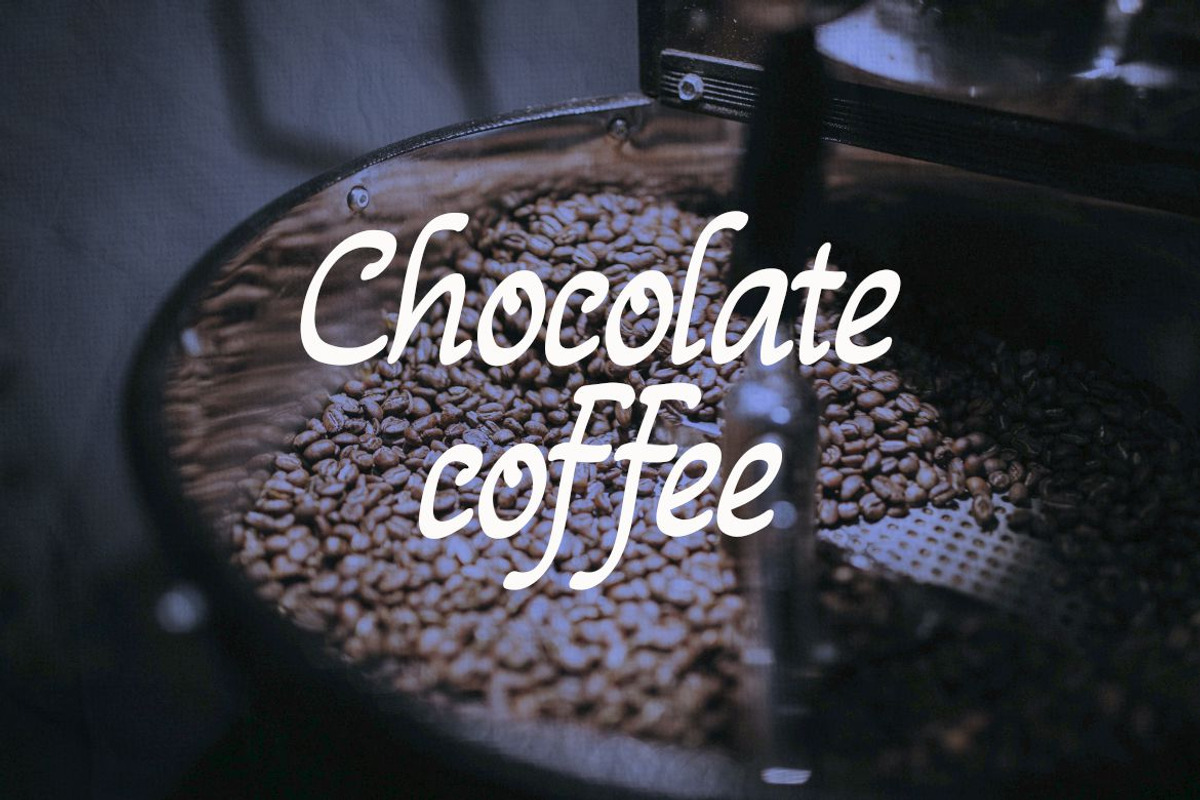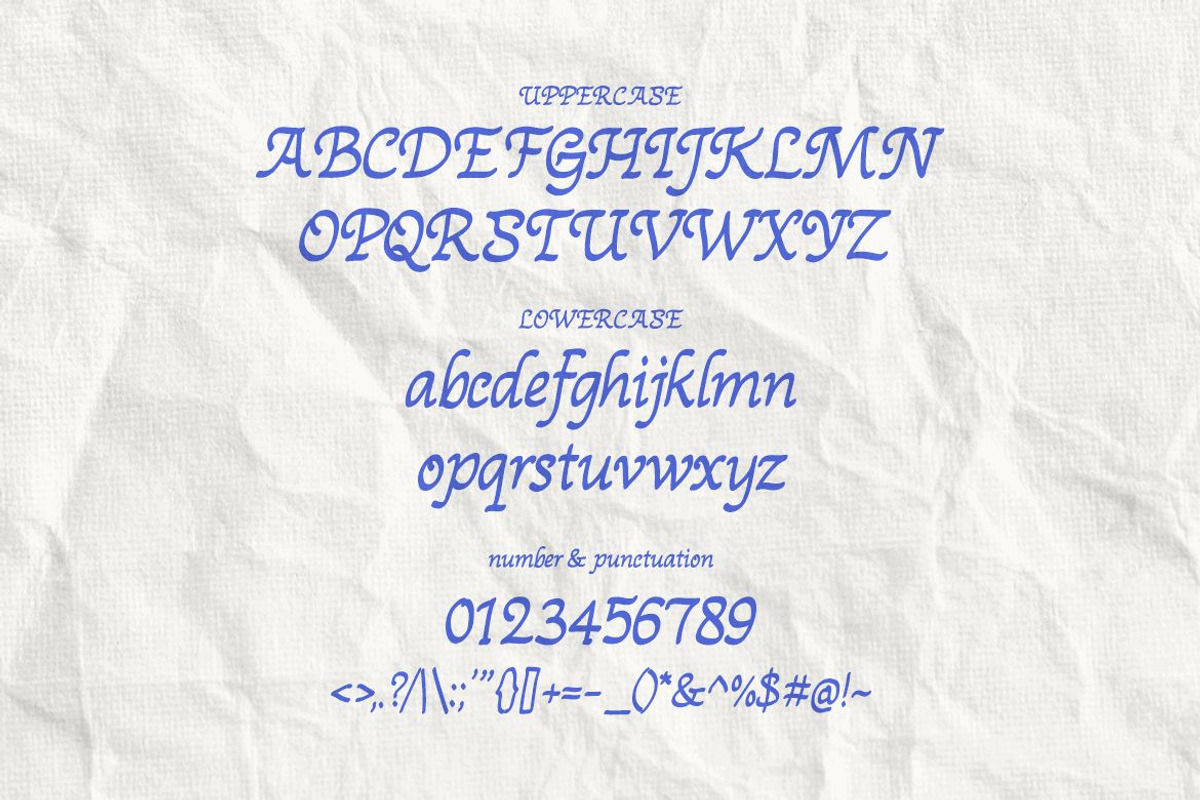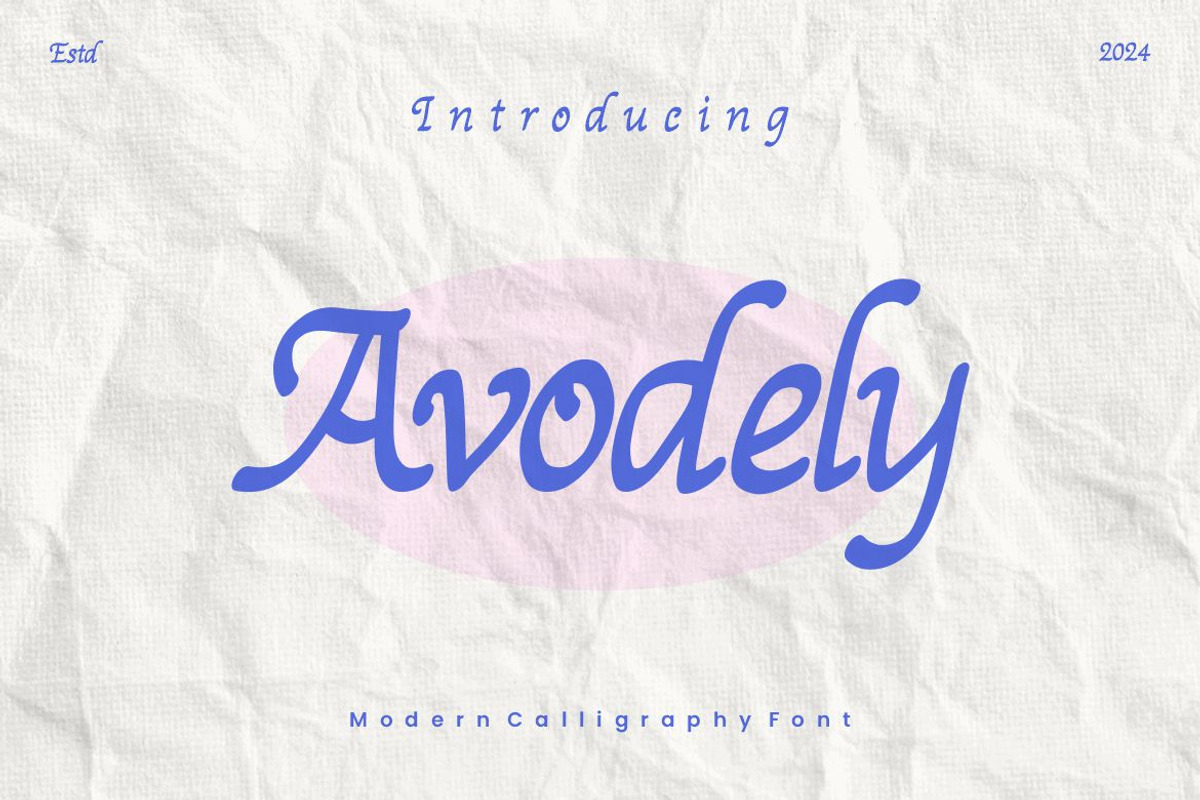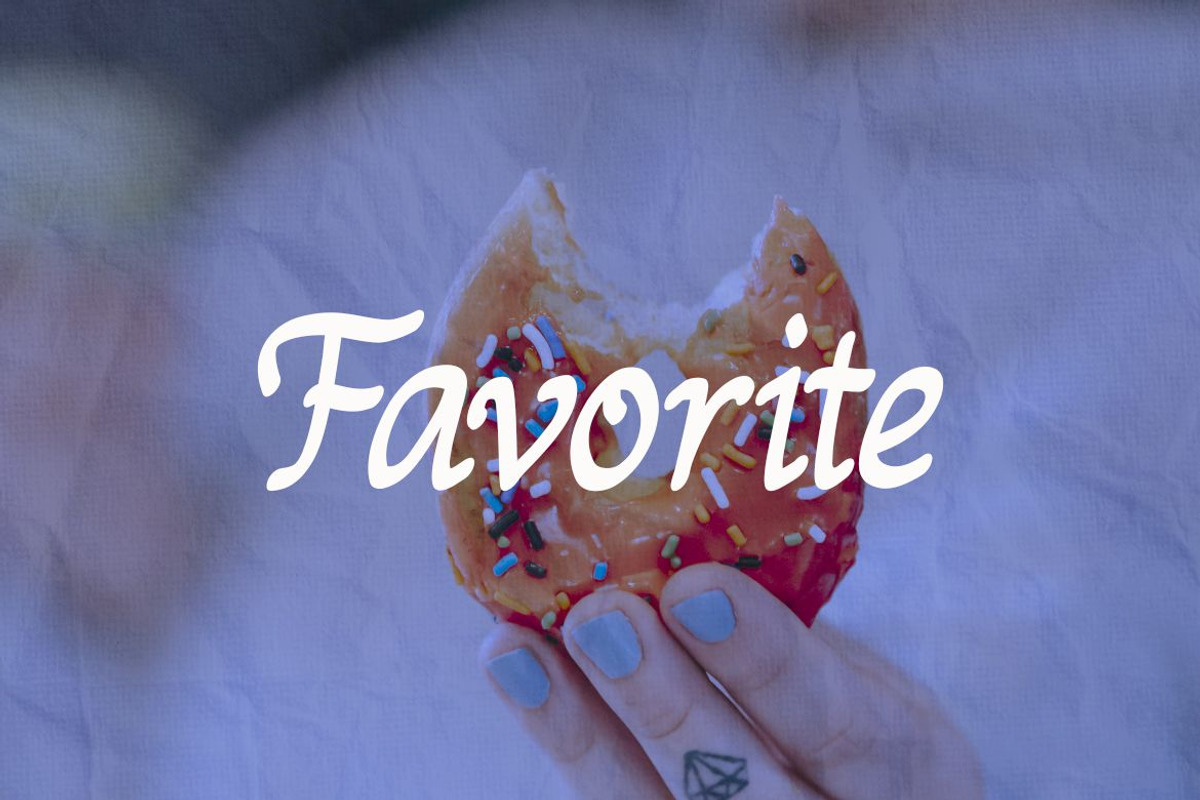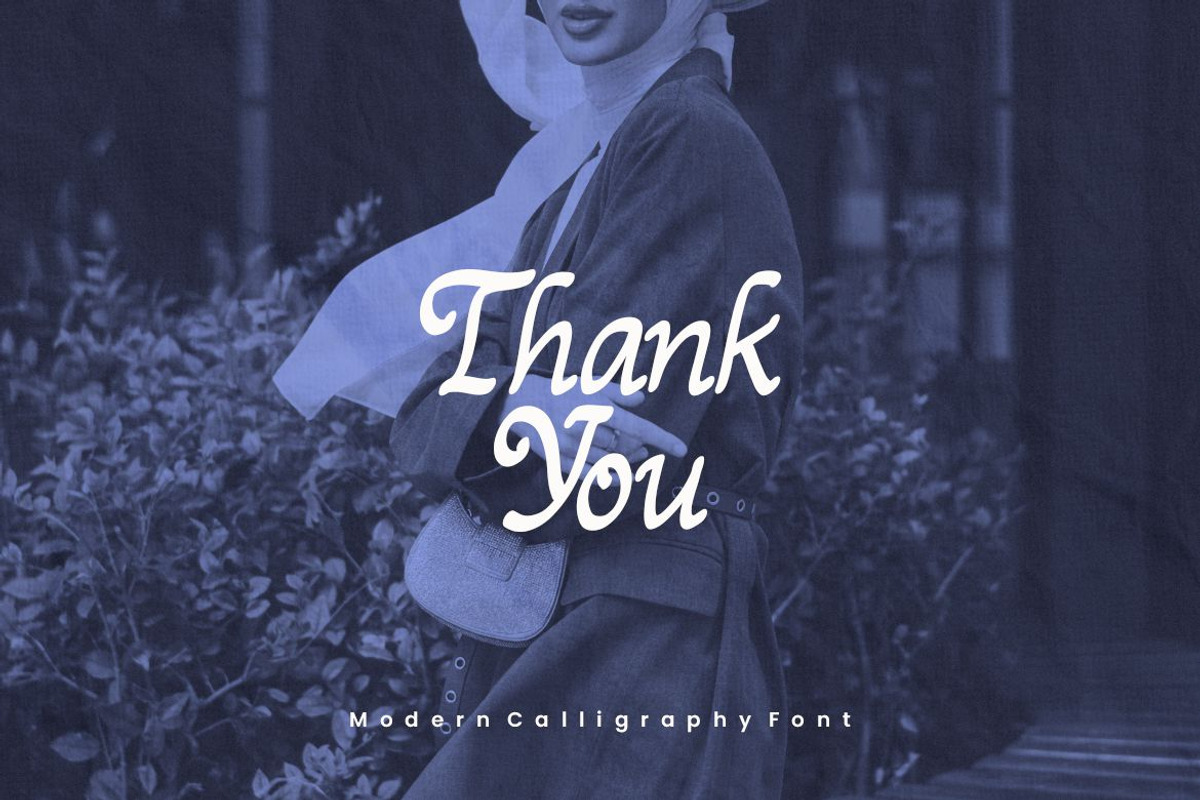
Avodely
Introducing Avodely , a cool and elegant modern Decorative font. Elegant font feel. This font gives you a beautiful and modern atmosphere. suitable for posters, book covers, cards, merchandise, etc.